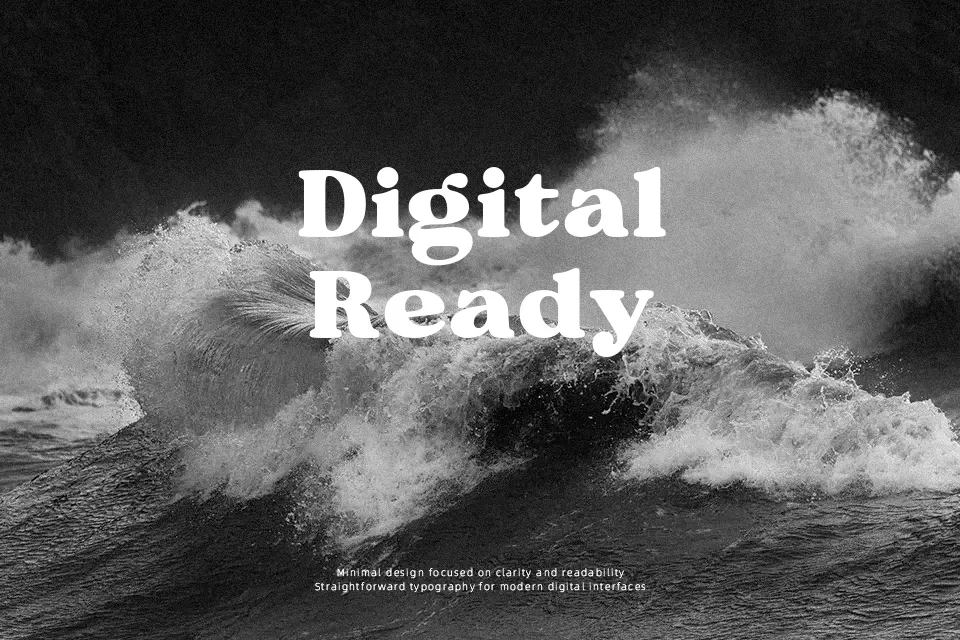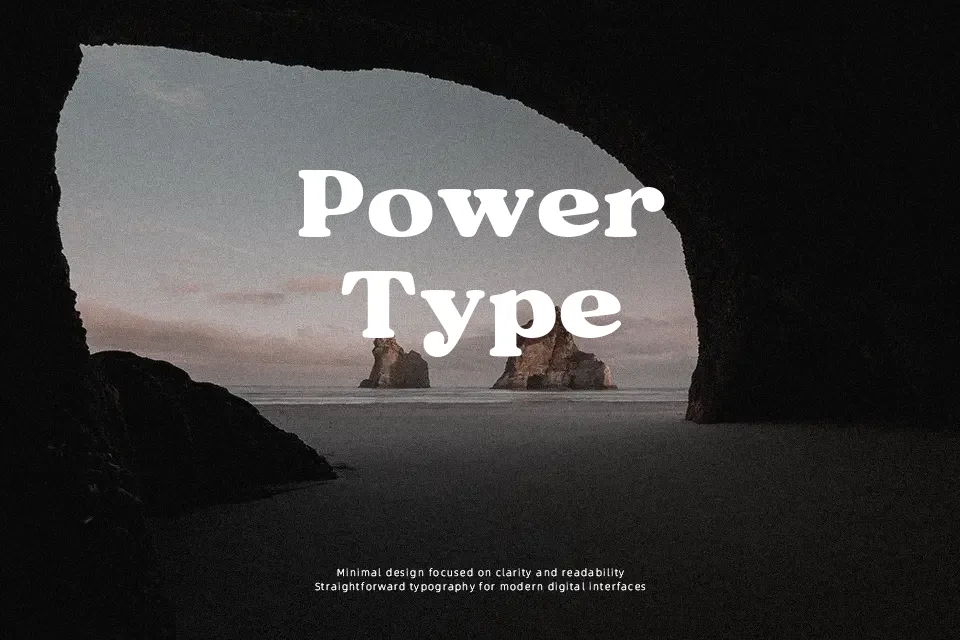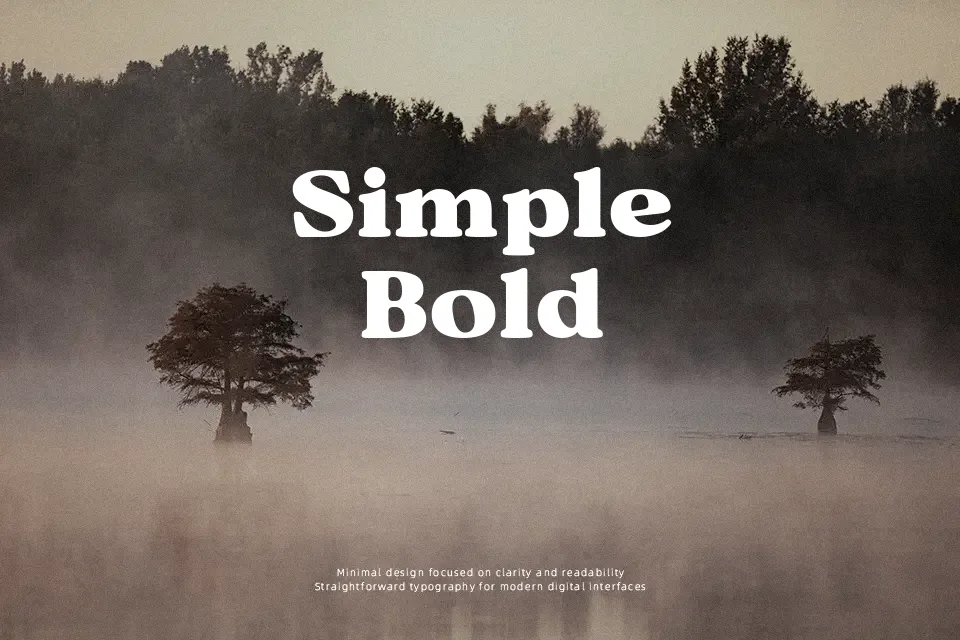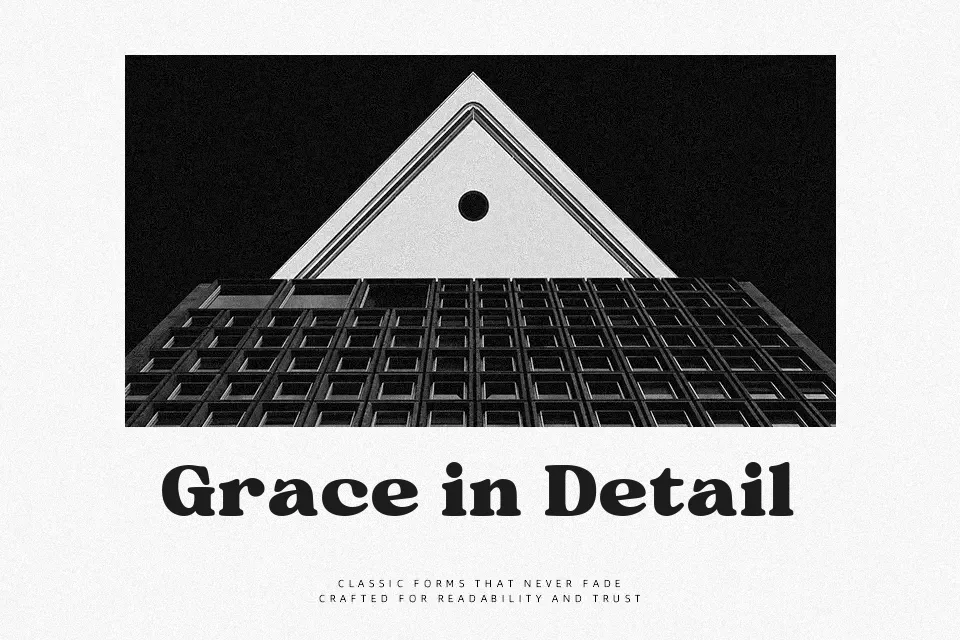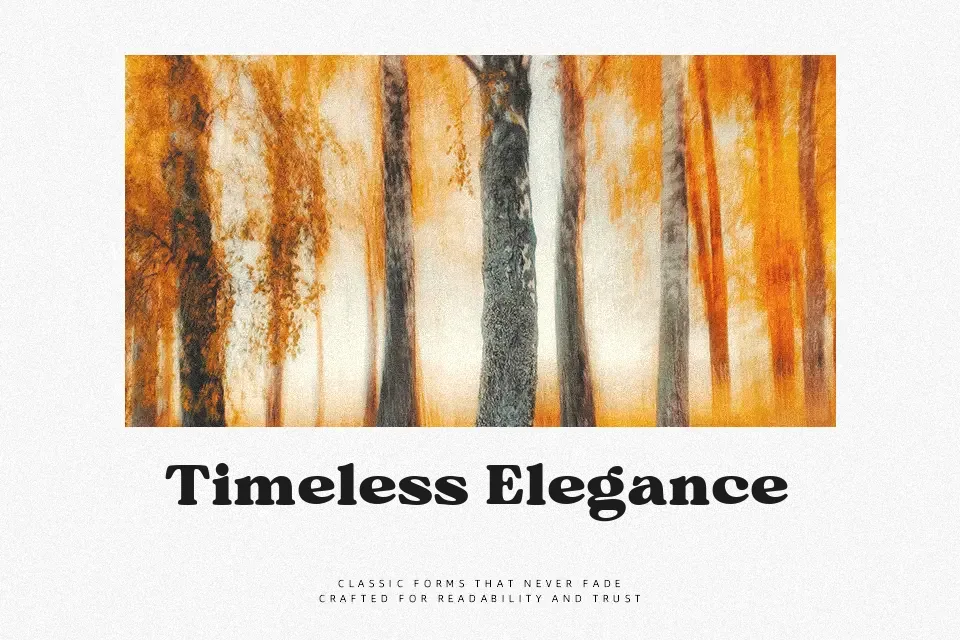
Bulland Font
Designed by Alit Design
Bulland is a high-impact retro serif with thick, rounded strokes, tight vertical proportions, and confident curves that instantly read as late-80s and early-90s design. The weight leans very bold, so letters feel compact yet loud, with subtle softness in the terminals that keeps it from looking stiff. It shines in big sizes: think throwback magazine covers, music cover art, bold thumbnails, and logotypes that need a sturdy vintage mood without looking dusty. For long paragraphs or small UI elements, the heavy forms can feel overwhelming and reduce legibility, so it works better paired with a simpler text companion, similar in spirit to chunky serifs like Cooper-style display faces.
retro music cover titles and posters,
bold vintage-style logos and wordmarks,
eye-catching social media or thumbnail headlines,
playful editorial or magazine cover mastheads
body text or long reading passages,
tiny UI labels or dense information layouts,
strictly minimalist corporate branding,
formal documents or academic publishing